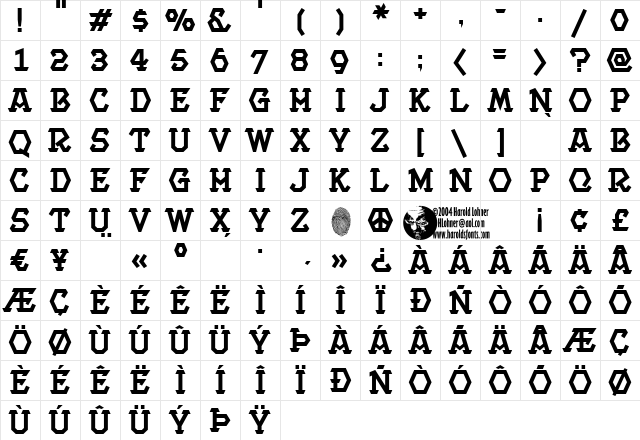
ProjectBold Regular
Design Context for ProjectBold Typeface
ProjectBold is a composed and adaptable typeface that performs quietly and consistently across a wide range of design contexts. The heavy weight commands attention and anchors typographic hierarchies.
Pro Tip: Use ProjectBold in both headline and body roles to test its range before committing to a single application.